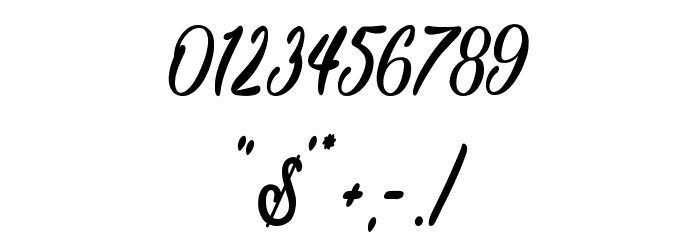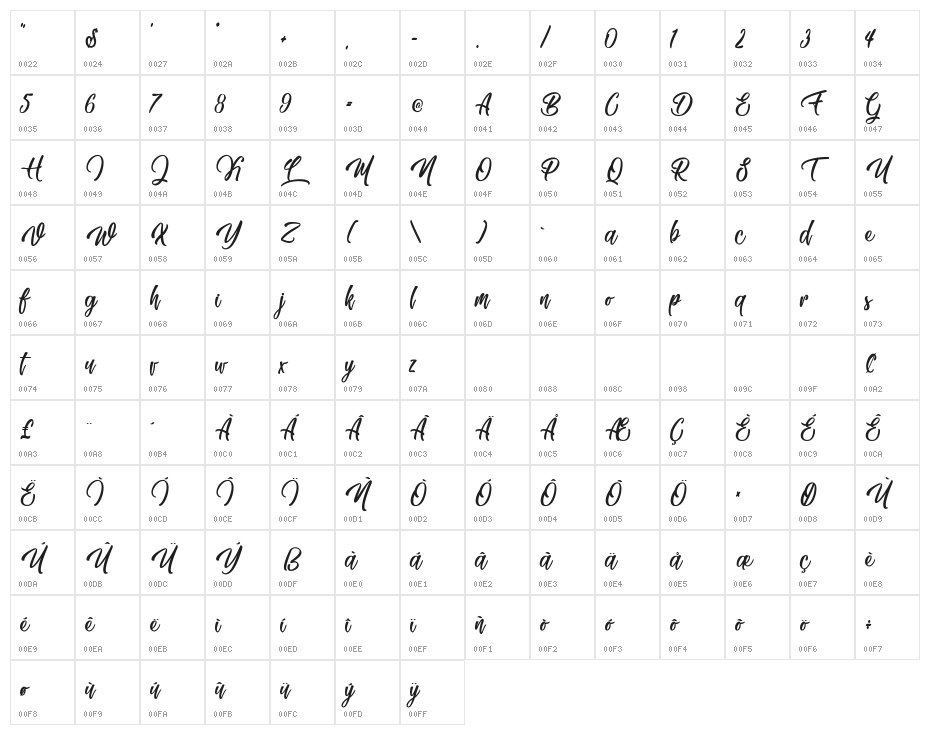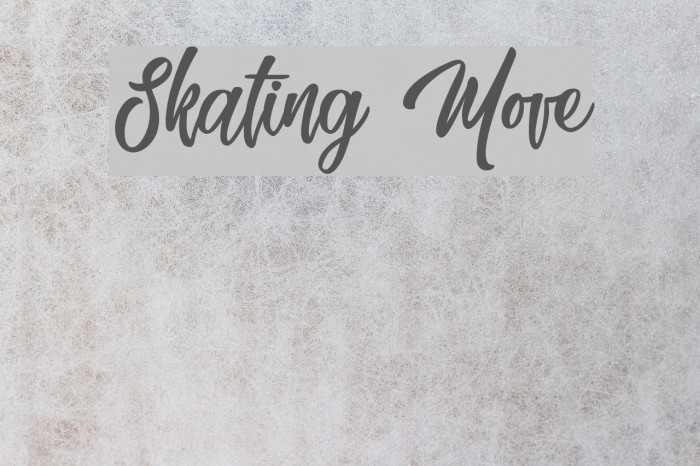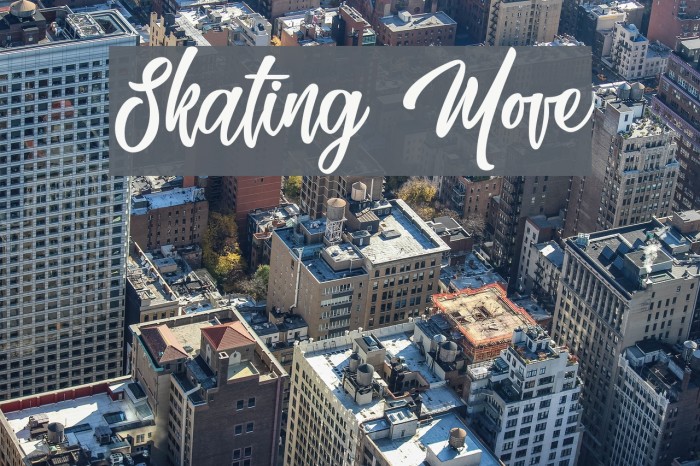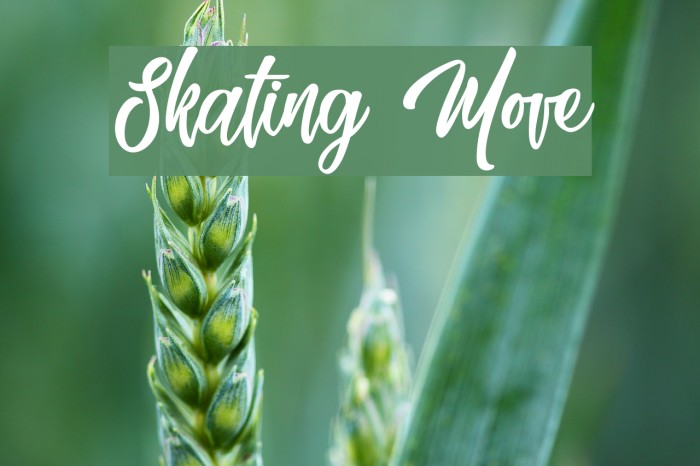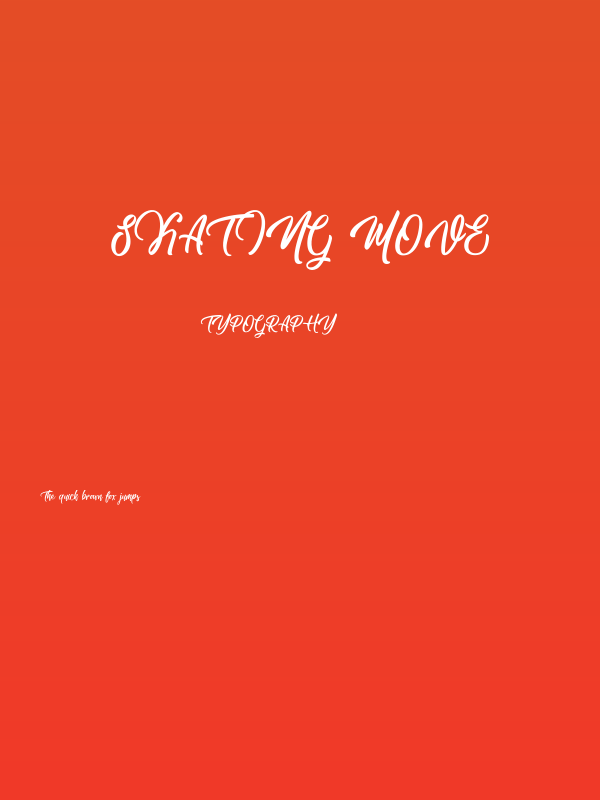
Skating Move Font
Skating Move Description
This elegant script font exudes a sense of fluidity and grace, characterized by its smooth, flowing lines and cursive style. The uppercase letters are bold and slightly slanted, giving an impression of movement and dynamism. The lowercase letters maintain a consistent style, with rounded edges and a harmonious flow that complements the uppercase. The numerals are equally stylish, maintaining the script's overall aesthetic. Special characters are thoughtfully designed to match the font's elegant and sophisticated look. This font is perfect for projects that require a touch of elegance and sophistication, such as invitations, branding, and decorative designs.
| Proposed Projects | Ideal for wedding invitations, elegant branding, decorative signage, and sophisticated logo designs. |